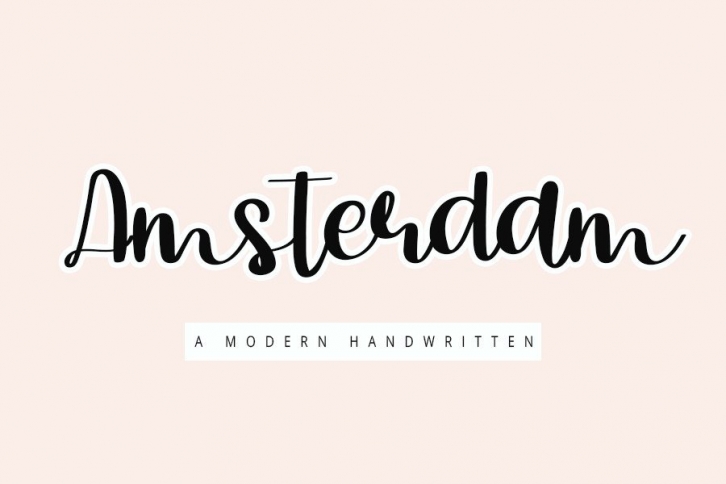
Amsterdam is an elegant and dainty handwritten font that features sweet and delicate swashes. This original look will appeal to a wide range of crafty ideas, from letterheads and titles, to stationery.